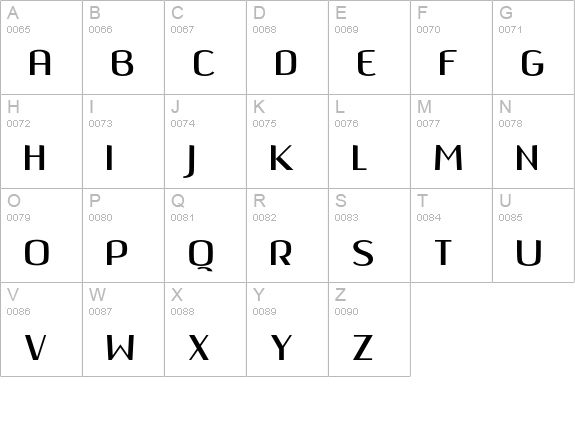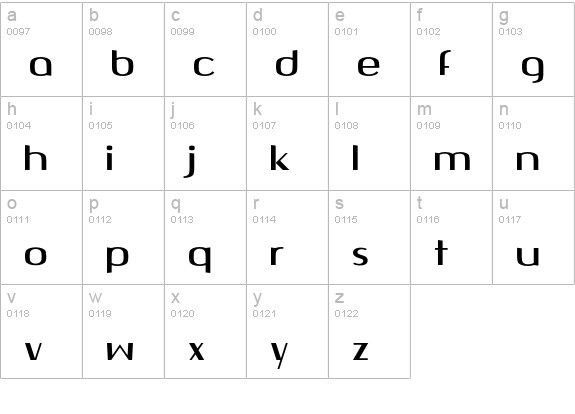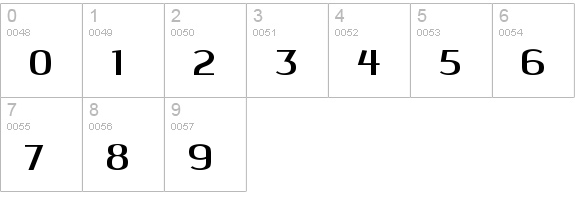
Quango Font Details
Introducing Quango, a captivating and versatile font that effortlessly combines modernity with a touch of elegance. This unique typeface is designed to make a bold statement and leave a lasting impression, no matter the project. Quango boasts a stunning array of characters, each meticulously crafted to ensure maximum legibility and visual impact. Its clean lines and geometric forms create a sense of harmony and balance, making it ideal for both headings and body text. Whether used in print or digital designs, Quango exudes a sense of professionalism and sophistication. But what truly sets Quango apart is its accessibility. We believe that great design should be accessible to all, which is why Quango is freely available to download at FontsMarket.com. This means that you can bring your creative visions to life without the constraints of a hefty price tag. With Quango, you have the freedom to explore and experiment, allowing your imagination to soar. Whether you're designing a logo, a website, or even creating eye-catching advertisements, Quango will be your go-to font. Its versatility allows it to adapt to any project, enhancing your message and captivating your audience. With its timeless appeal and wide range of weights and styles, Quango is sure to become an indispensable tool in your design arsenal. So why wait? Discover the power of Quango today and unlock your creative potential. Download it for free at FontsMarket.com and see how this remarkable font can transform your designs from ordinary to extraordinary. Embrace the freedom of Quango and let your imagination run wild.